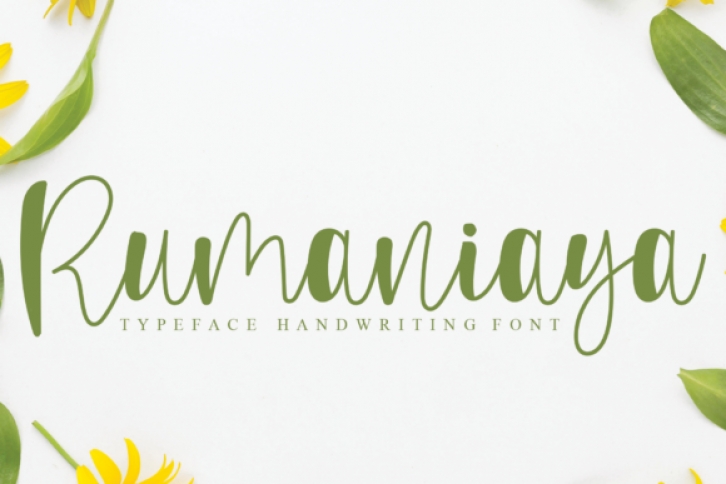
Rumaniaya is a sweet and delicate handwritten font. Its distinct and well rounded letters make this font a masterpiece. Fall in love with its incredibly versatile style and use it to create spectacular designs!